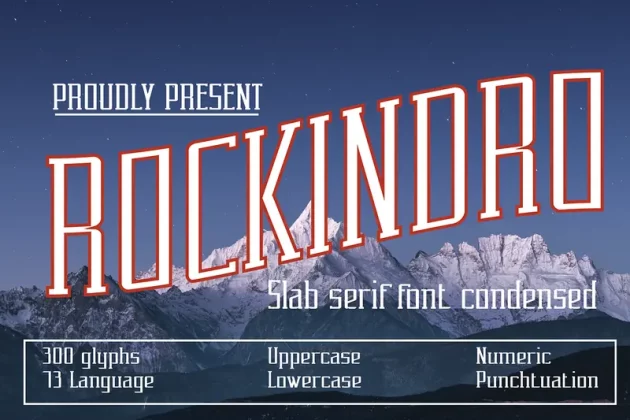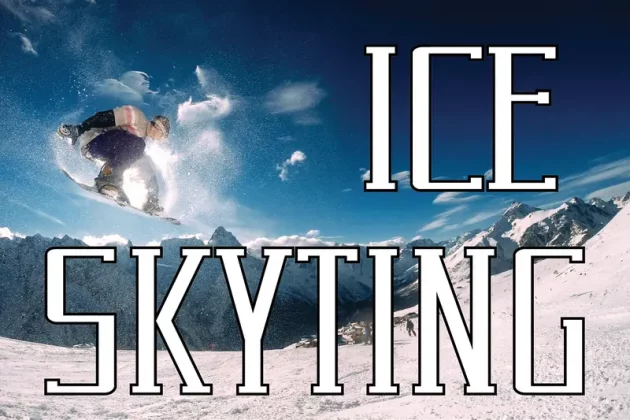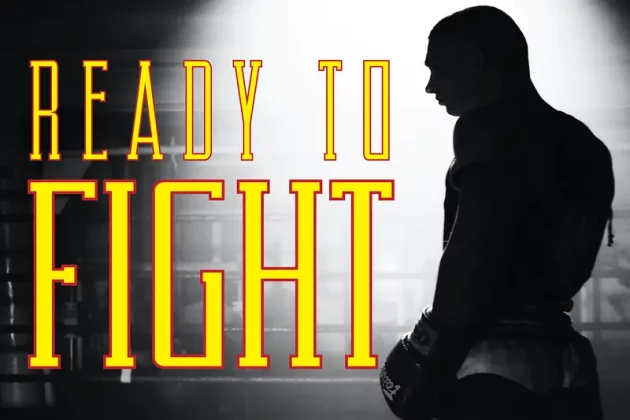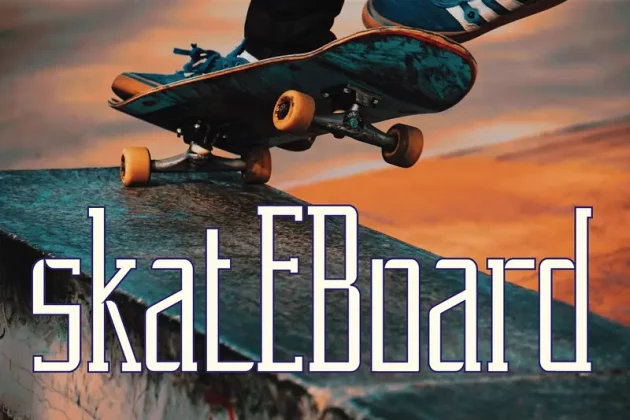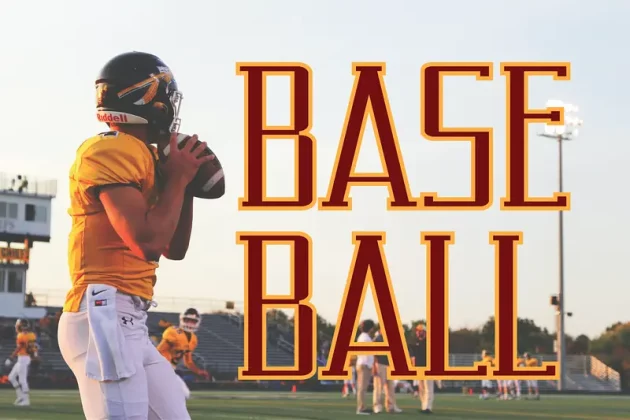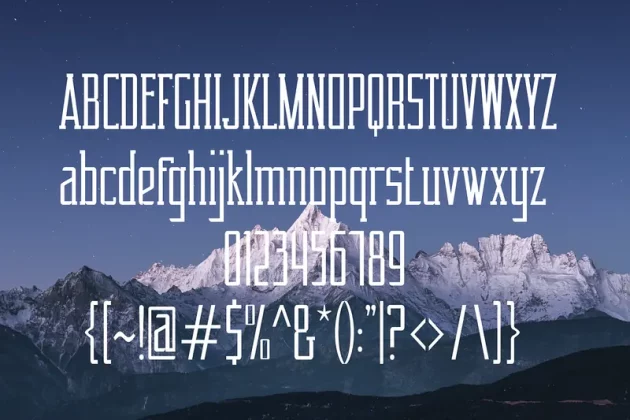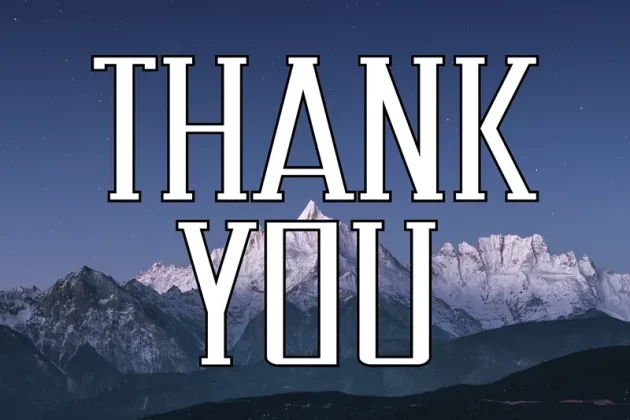
About Rockindro slab serif Font
Unleash the power and intensity of your sporting endeavors with the Rockindro Slab Serif Font. Designed with passion and precision, this dynamic typeface is the perfect choice for any sports-related project. With a robust character set boasting 300 meticulously crafted glyphs, Rockindro is the ultimate tool for capturing the energy and excitement of the athletic world.
Features
Basic Latin A-Z and a-z
Numbers
Symbols
Multilanguage Support